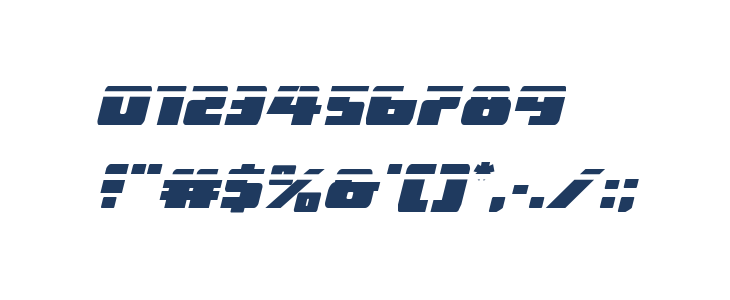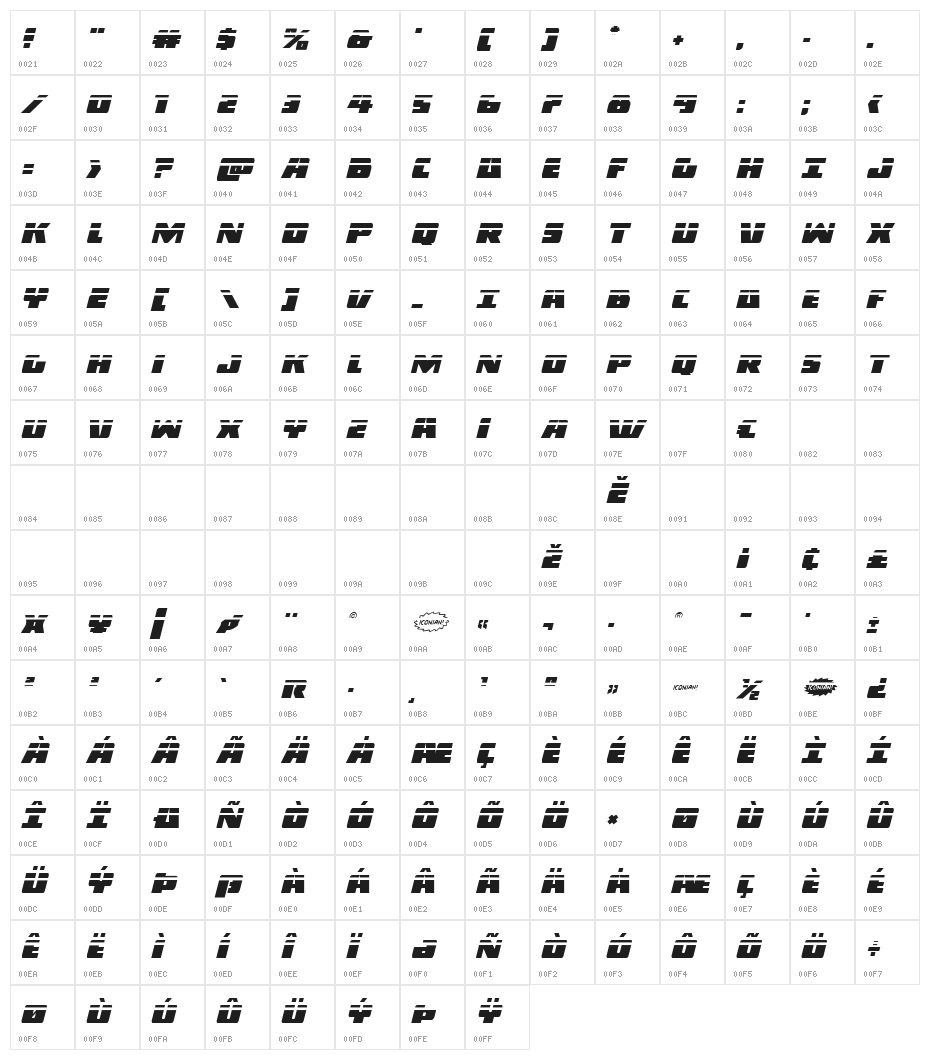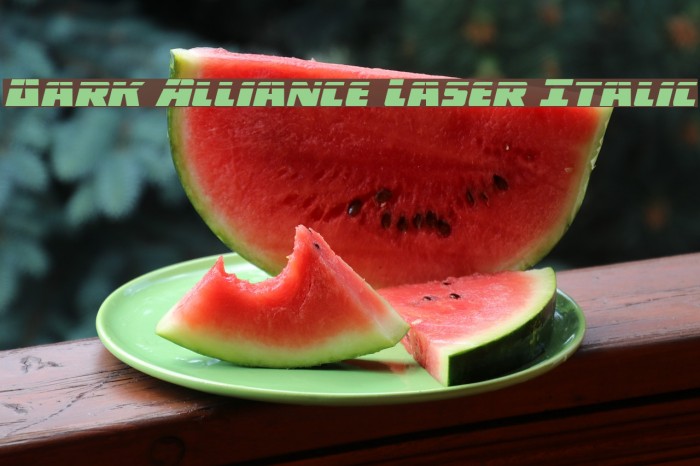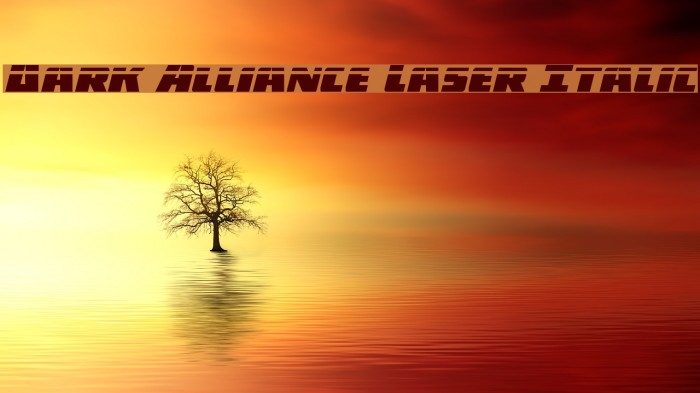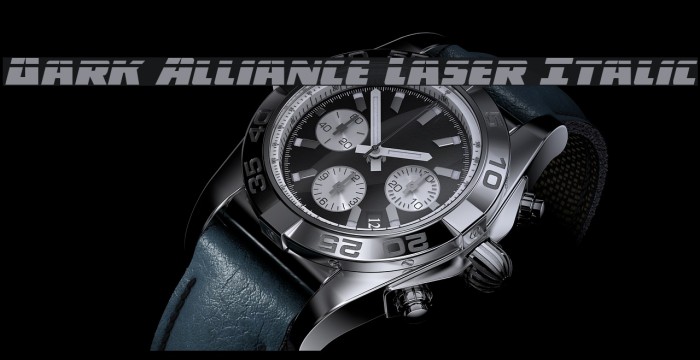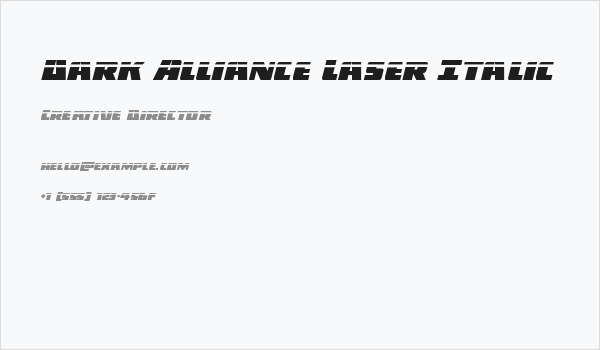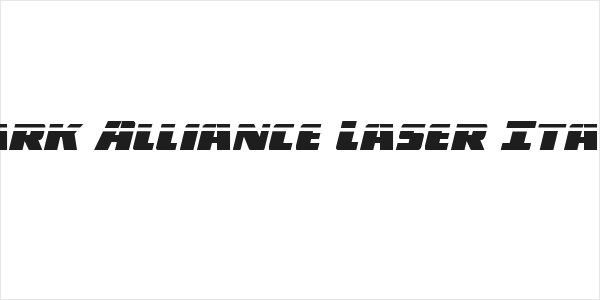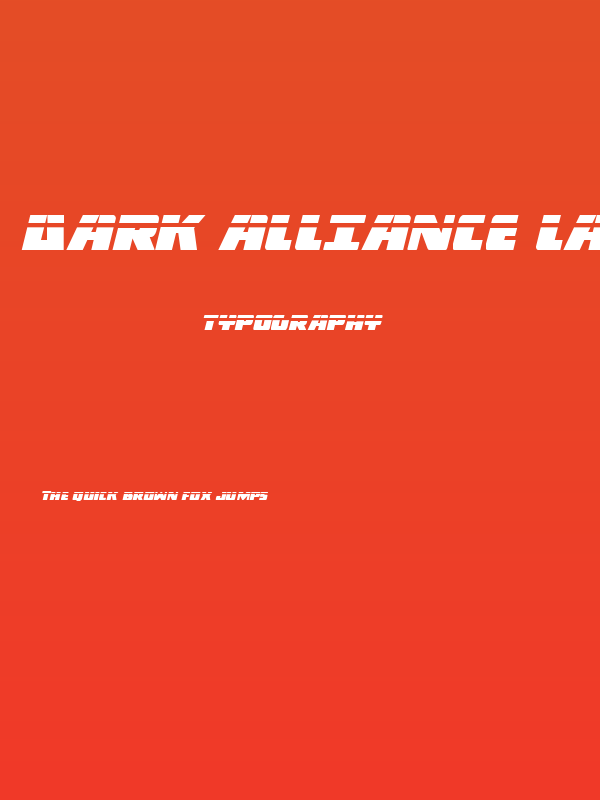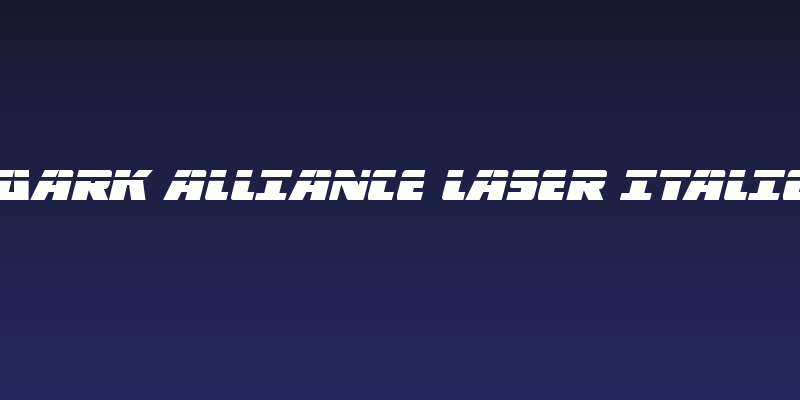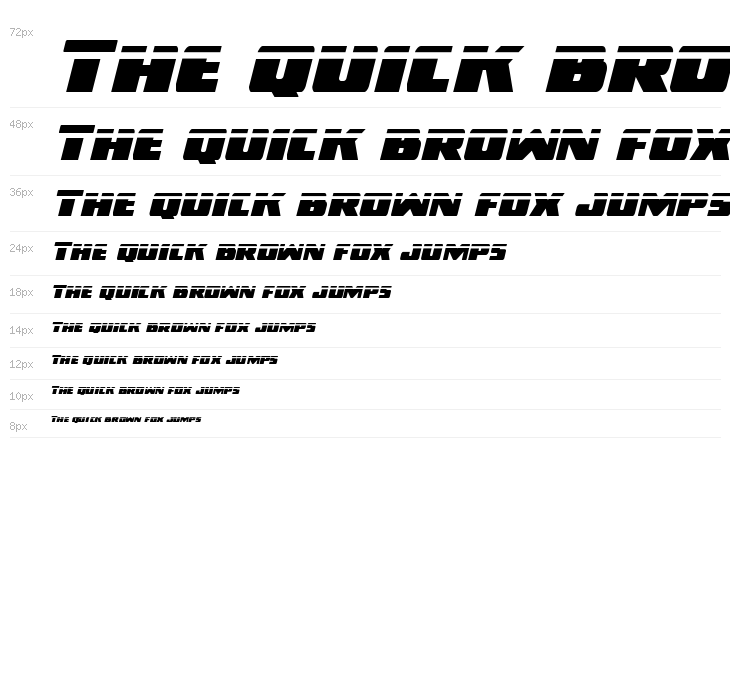
Dark Alliance Laser Italic Font
Dark Alliance Laser Italic Description
This font features a bold and futuristic design with sharp, angular edges and a distinct italic slant. The characters are heavily stylized, giving them a dynamic and aggressive appearance. The uppercase and lowercase letters maintain a consistent style, with a strong emphasis on geometric shapes. The numbers and special characters follow the same design principles, ensuring uniformity across all glyphs. The font's unique style makes it stand out, suitable for projects that require a modern and edgy look.